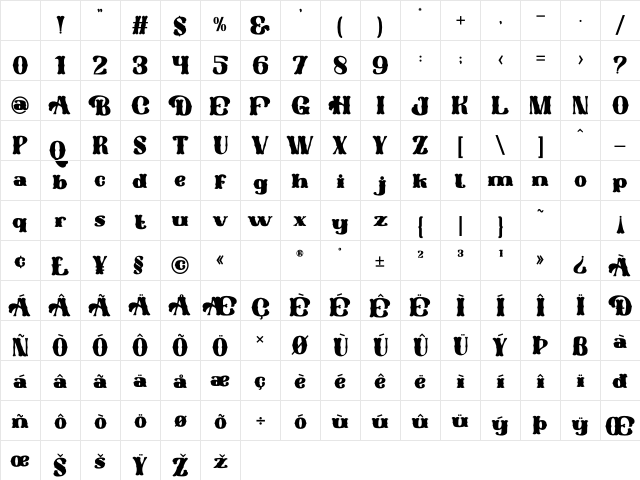
Complete Western Cowboy Regular glyph index. Displaying only characters natively supported by Western Cowboy Regular font.
Western Cowboy echoes the hand-painted signage and woodblock typography of the American frontier, with a warm, rugged personality.
Font Pairing: Combine Western Cowboy with a simple slab or neutral sans - period-accurate companions reinforce the vintage feel without competing for attention.
Pro Tip: Use Western Cowboy for short, impactful bursts of text - it shines in poster headlines and product names rather than extended copy.